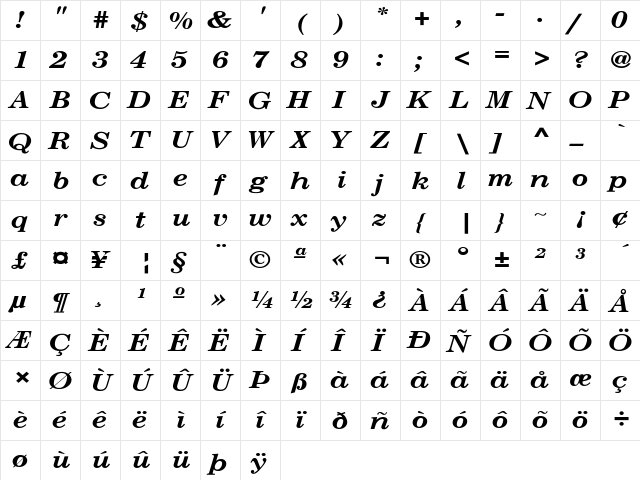
NewCenturySchlbkExt-Bold-Italic Regular
Design Context for NewCenturySchlbkExt-Bold-Italic Typeface
NewCenturySchlbkExt-Bold-Italic is a composed and adaptable typeface that performs quietly and consistently across a wide range of design contexts. The slanted form adds forward momentum and visual energy. The heavy weight commands attention and anchors typographic hierarchies.
Pro Tip: Use NewCenturySchlbkExt-Bold-Italic for emphasis, pull quotes, and subheadings where its slanted energy can add rhythm to the layout.